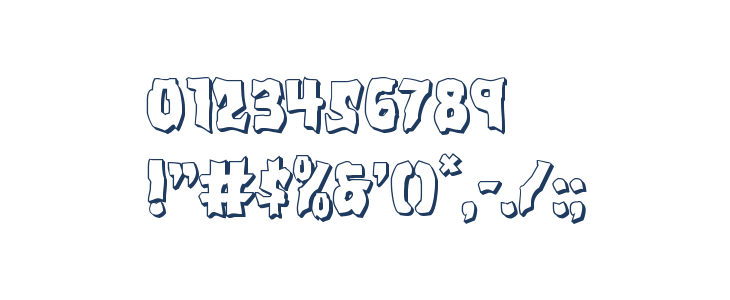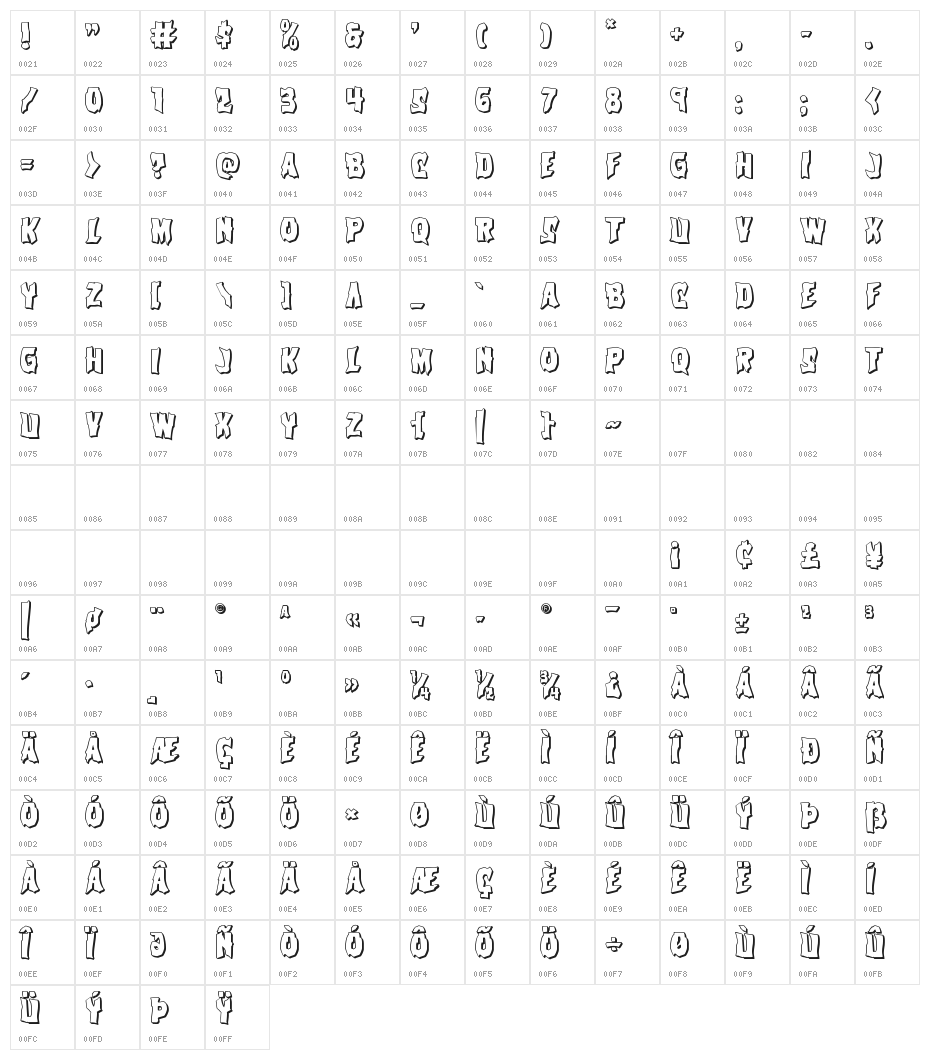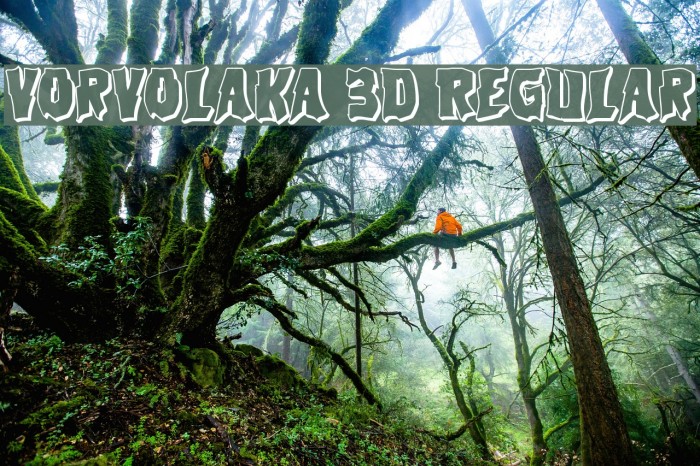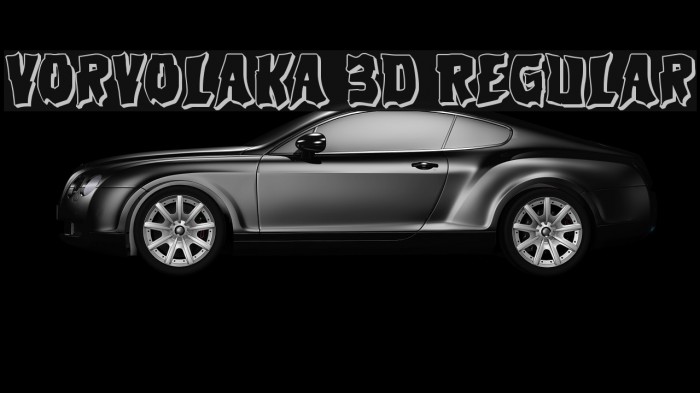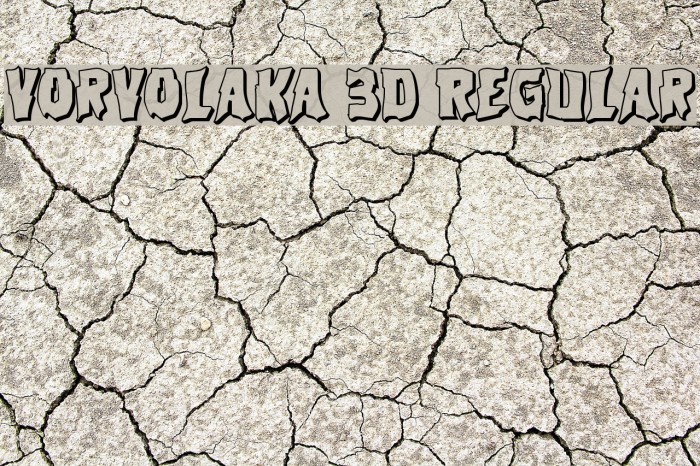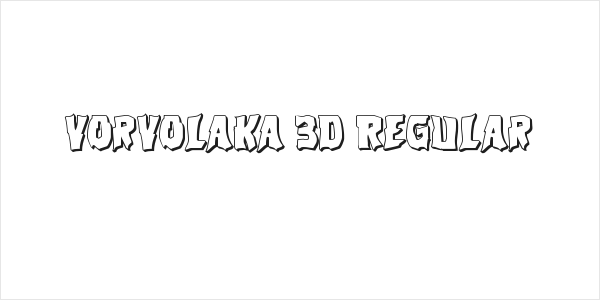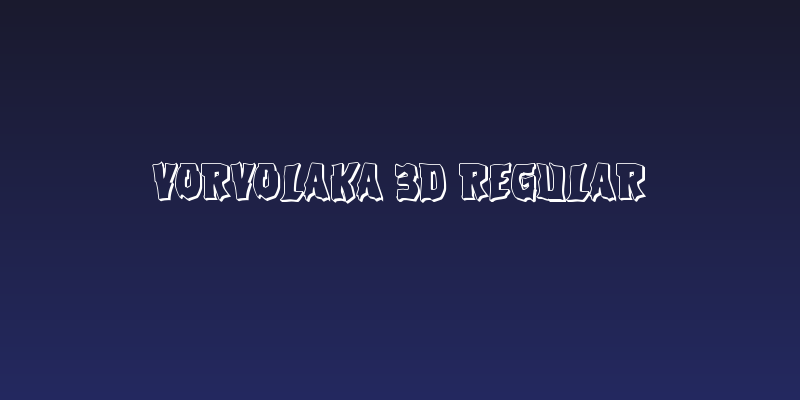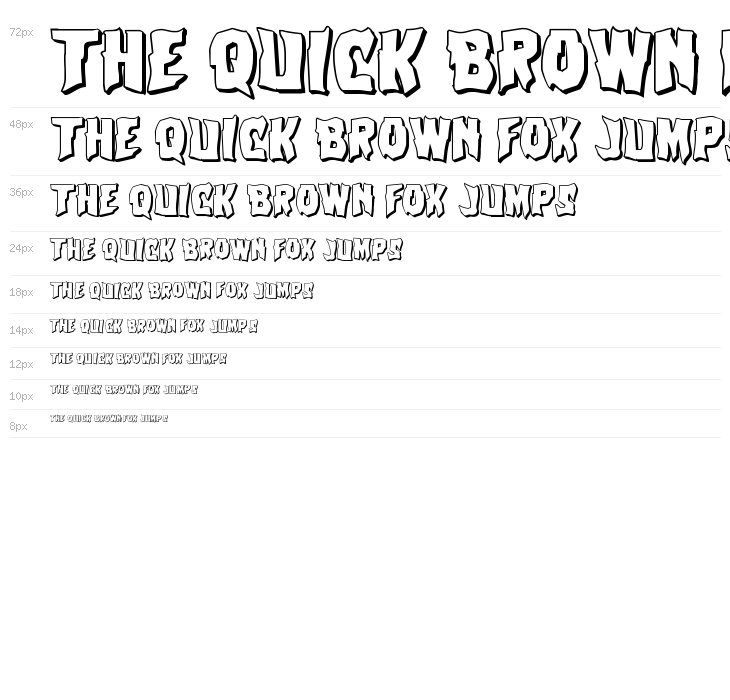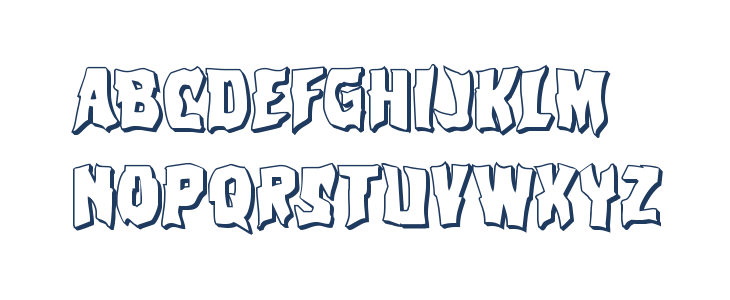
Vorvolaka 3D Regular Font
Vorvolaka 3D Regular Description
This font features a bold, three-dimensional appearance with a rugged, hand-drawn style. The characters have a jagged, uneven outline that gives them a dynamic and energetic feel. The thick strokes and shadowing create a sense of depth, making the letters appear as if they are popping off the page. This font is highly decorative and is designed to capture attention with its unique, edgy look. The uppercase and lowercase letters maintain a consistent style, while the numbers and special characters complement the overall aesthetic. This font is ideal for projects that require a bold statement and a touch of creativity.